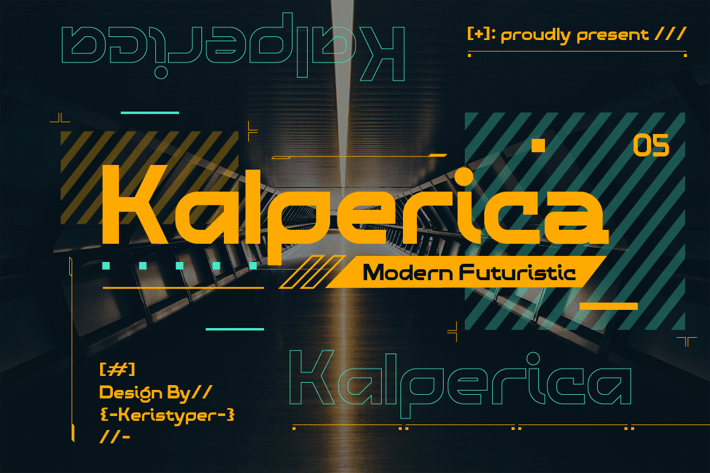
Kalperica Font
Kalperica is a futuristic font for the design of minimalist characteristics that has a digital world feel of the metaverse. This font is good for logo design, Social media, Movie Titles, Books Titles, short text even long text letters, and good for your secondary text font with sans or serif.
Featured:
Standard Uppercase & Lowercase
Multilingual : ä ö ü Ä Ö Ü ß ¿ ¡
Alternate & Ligature